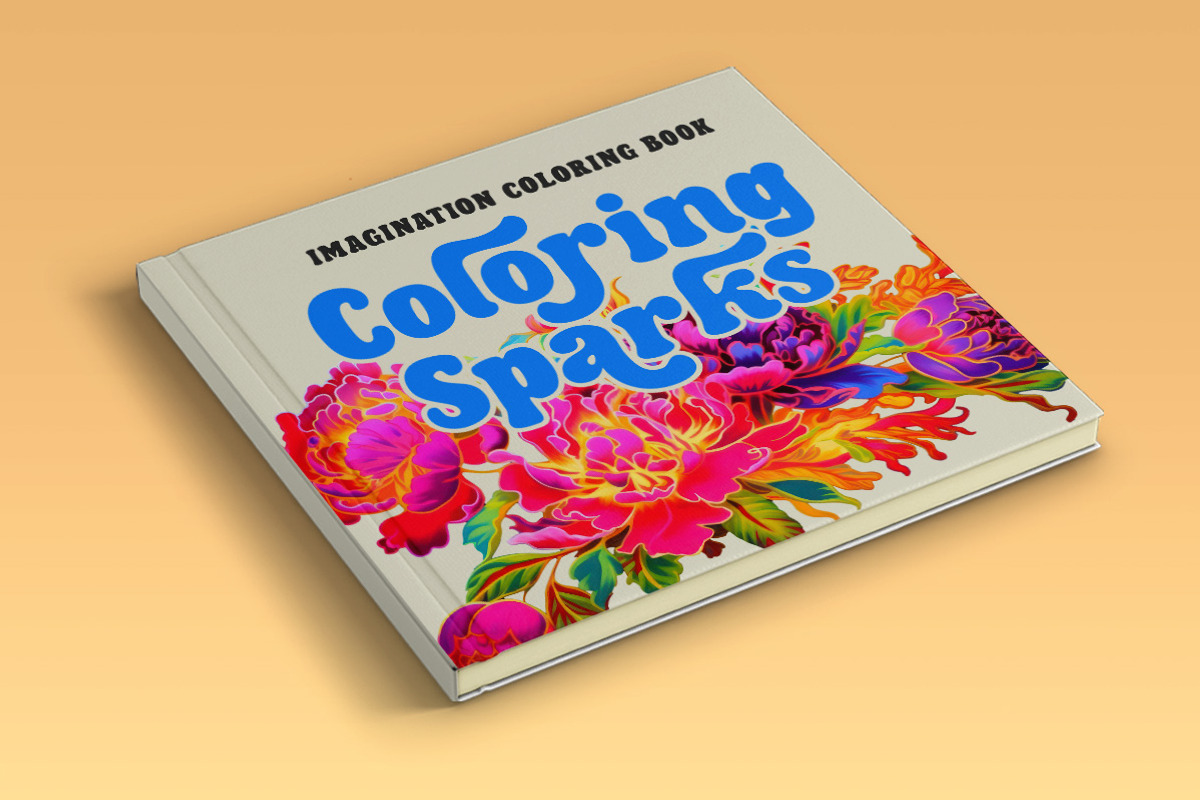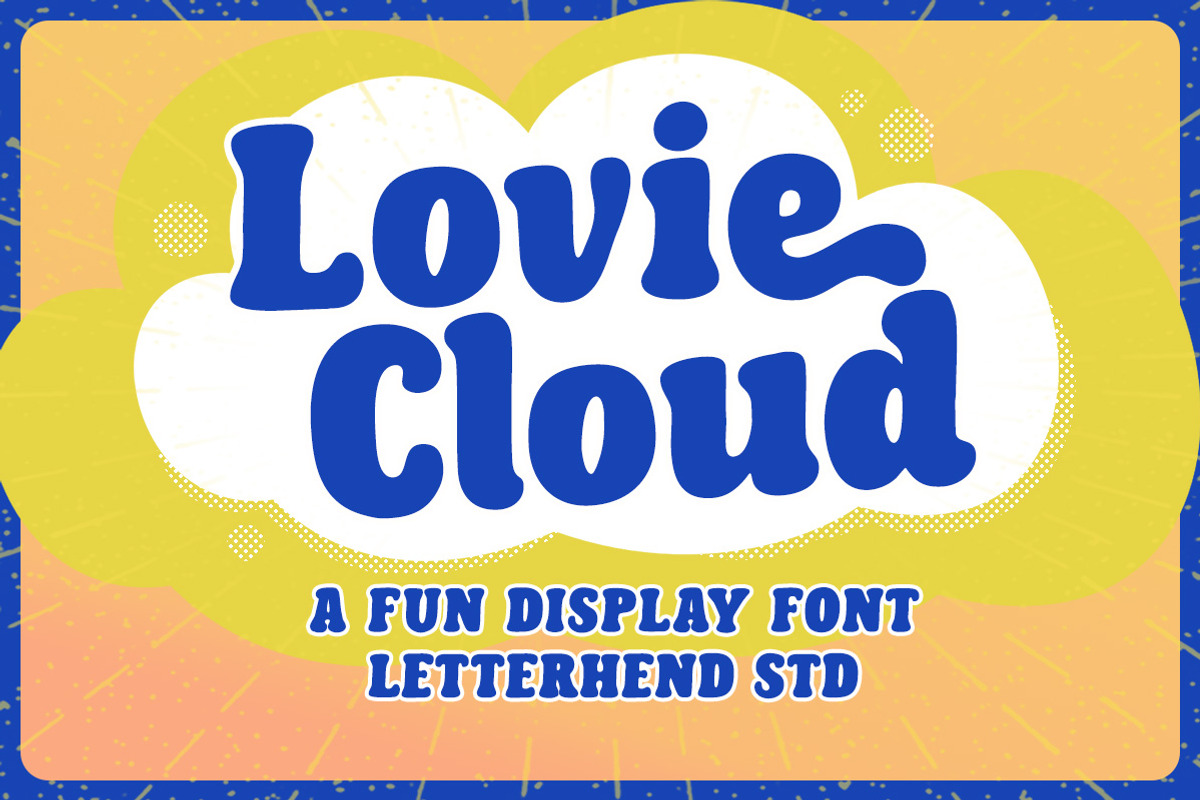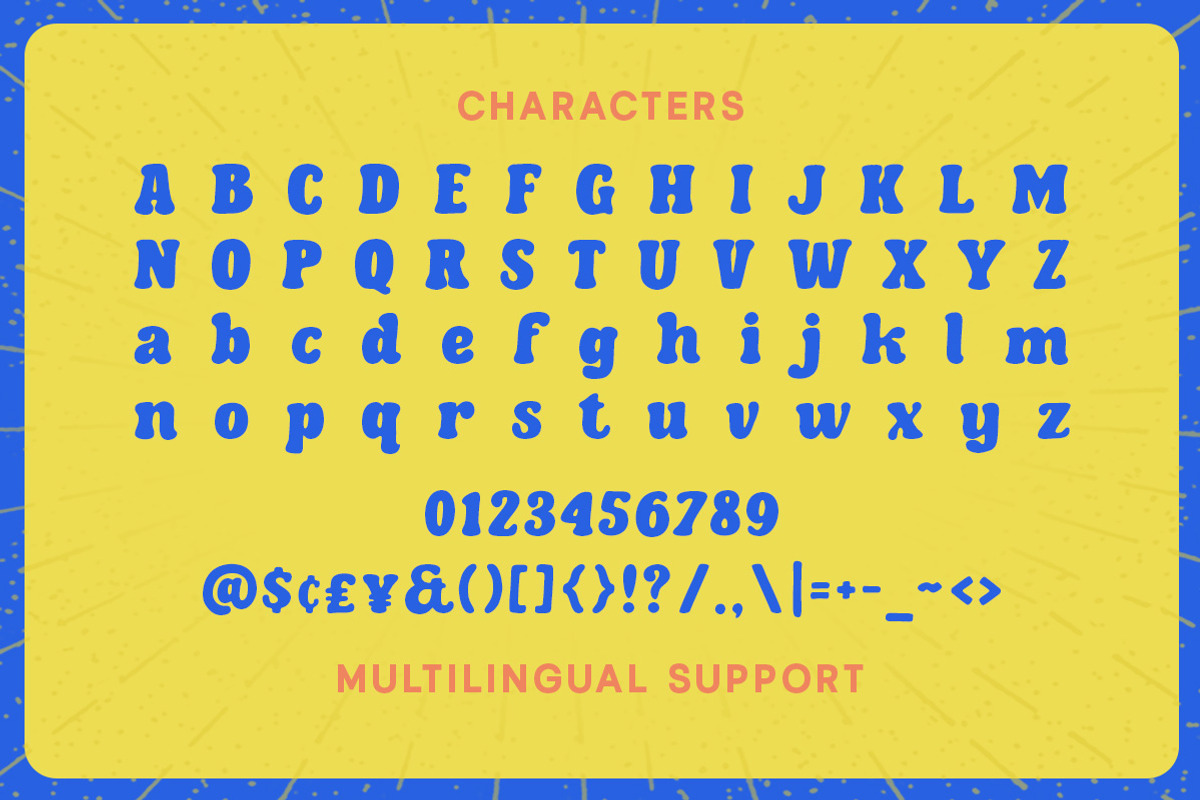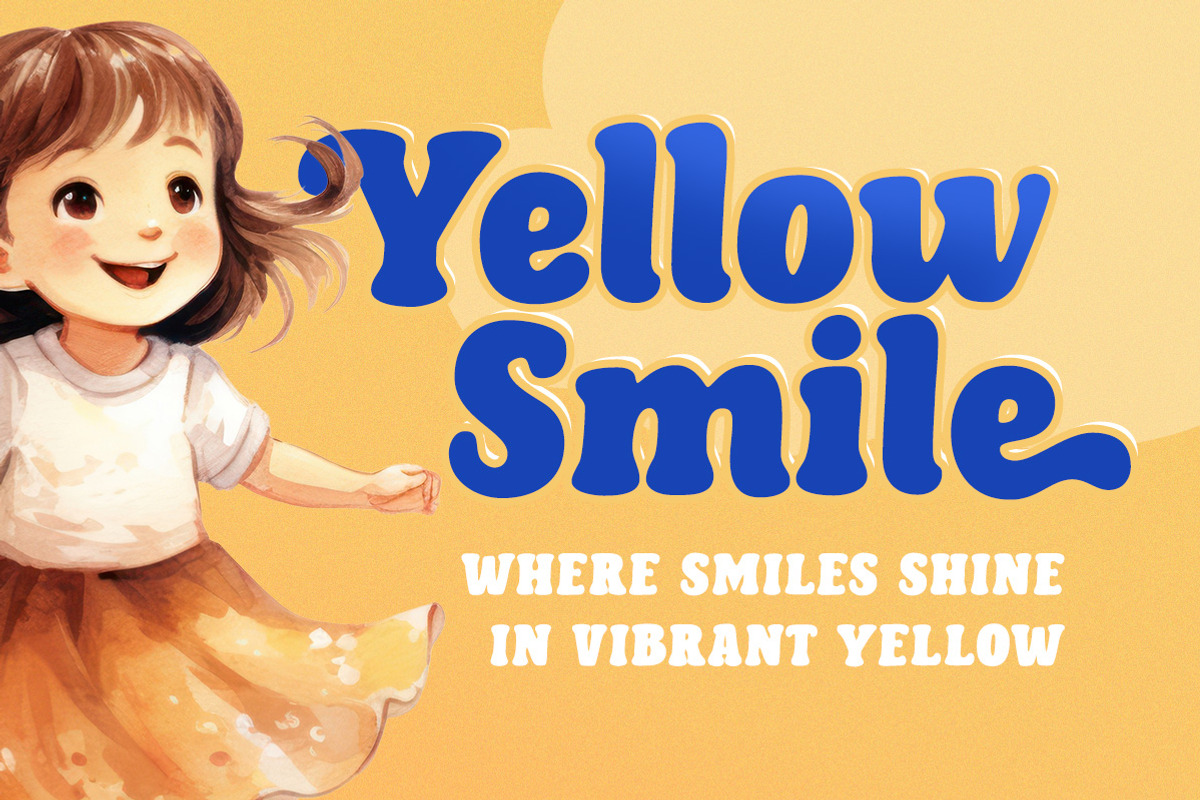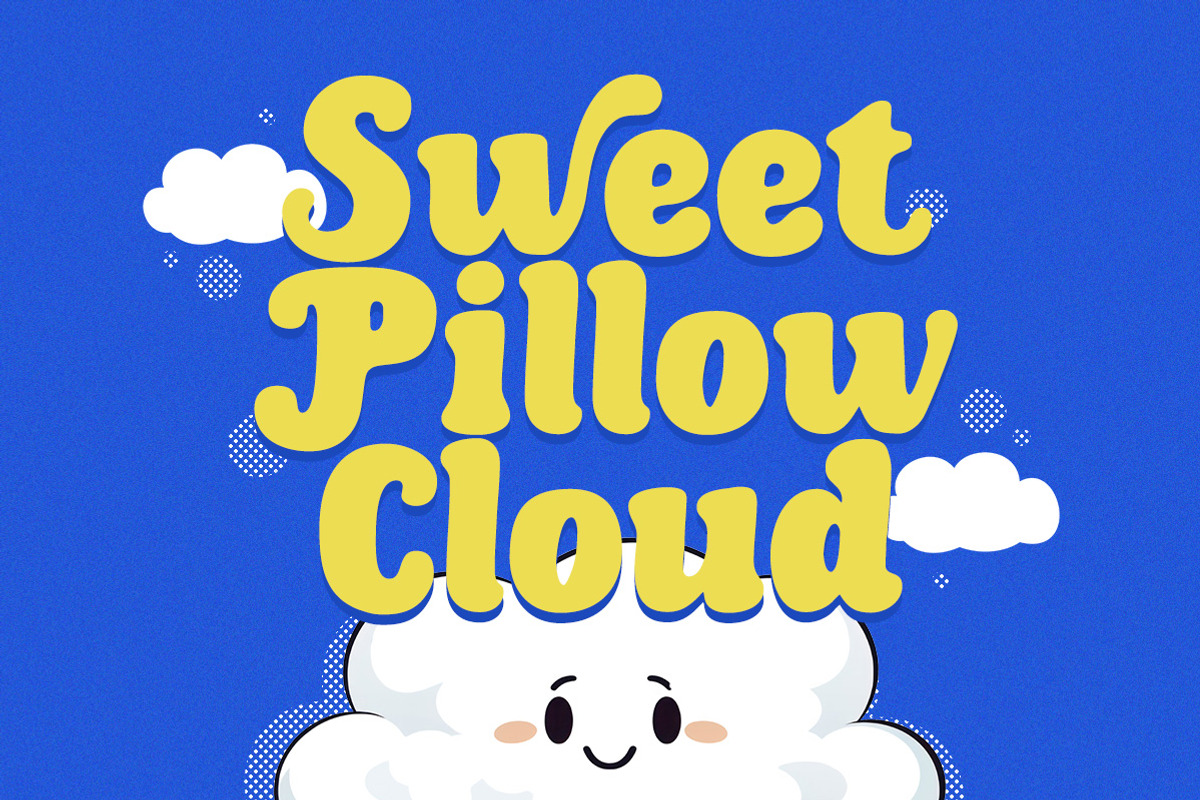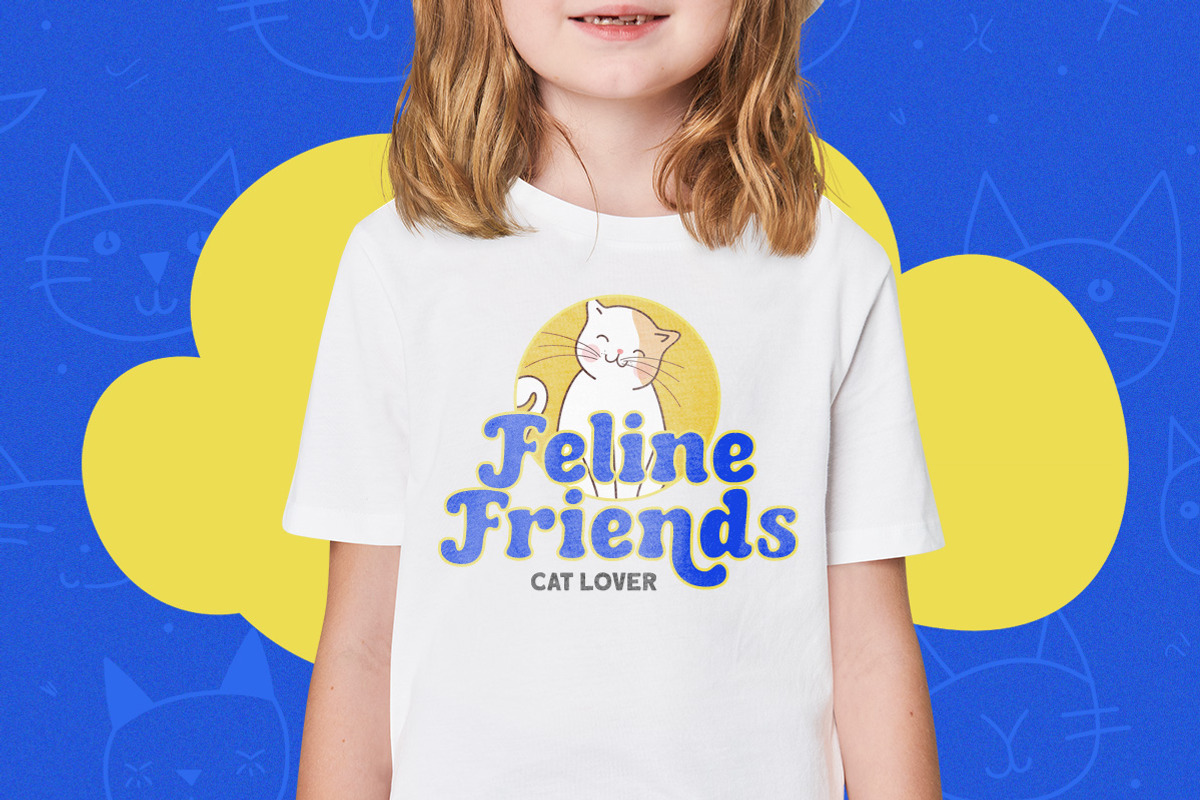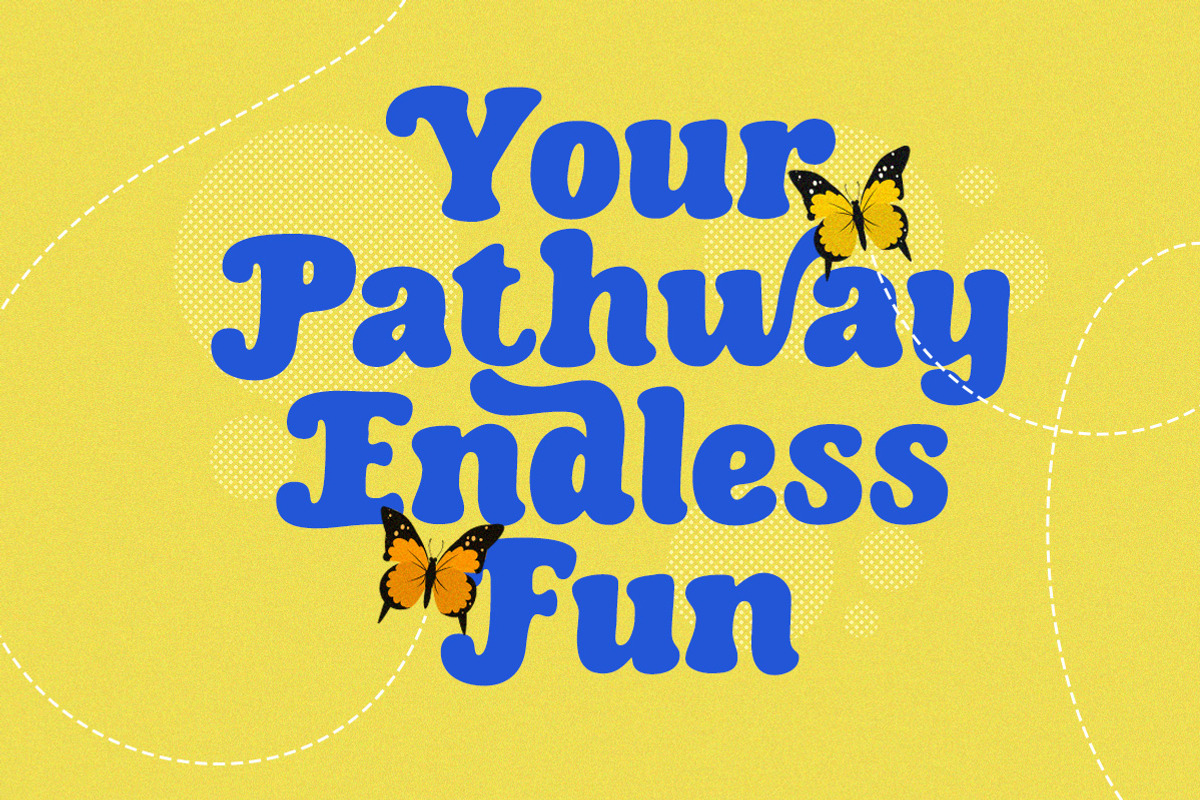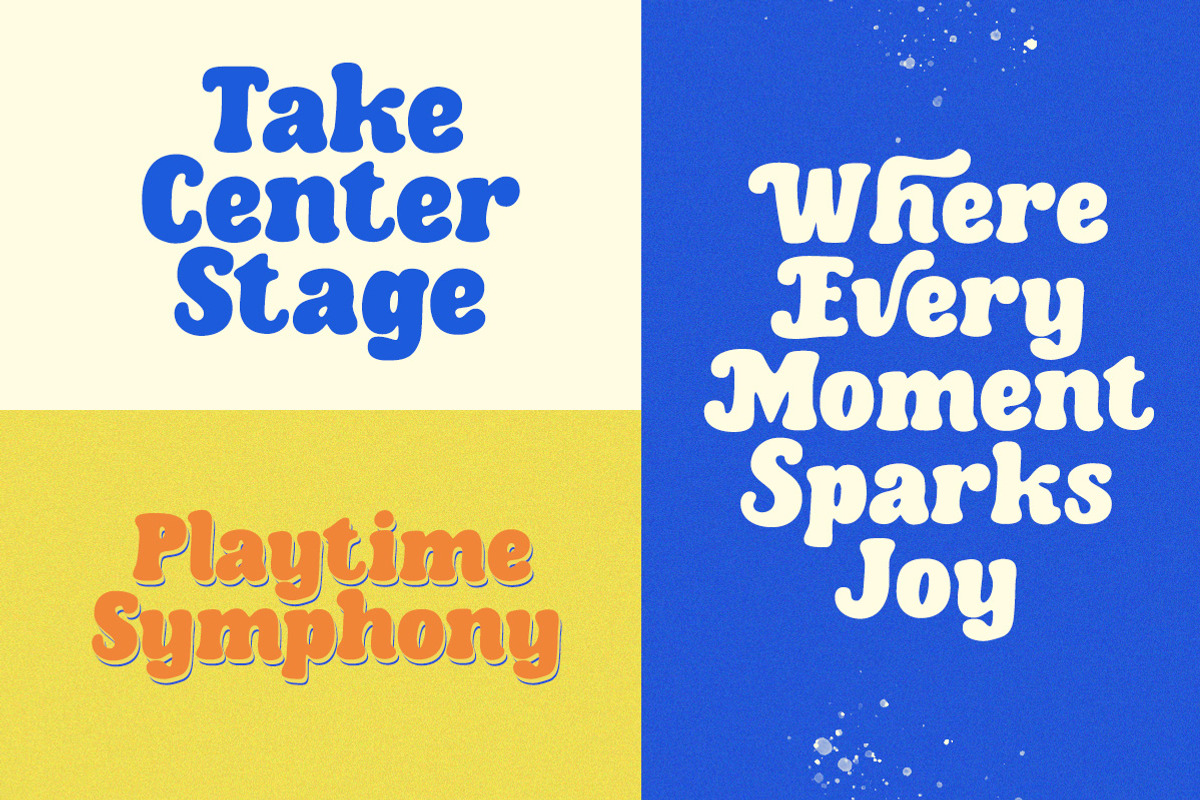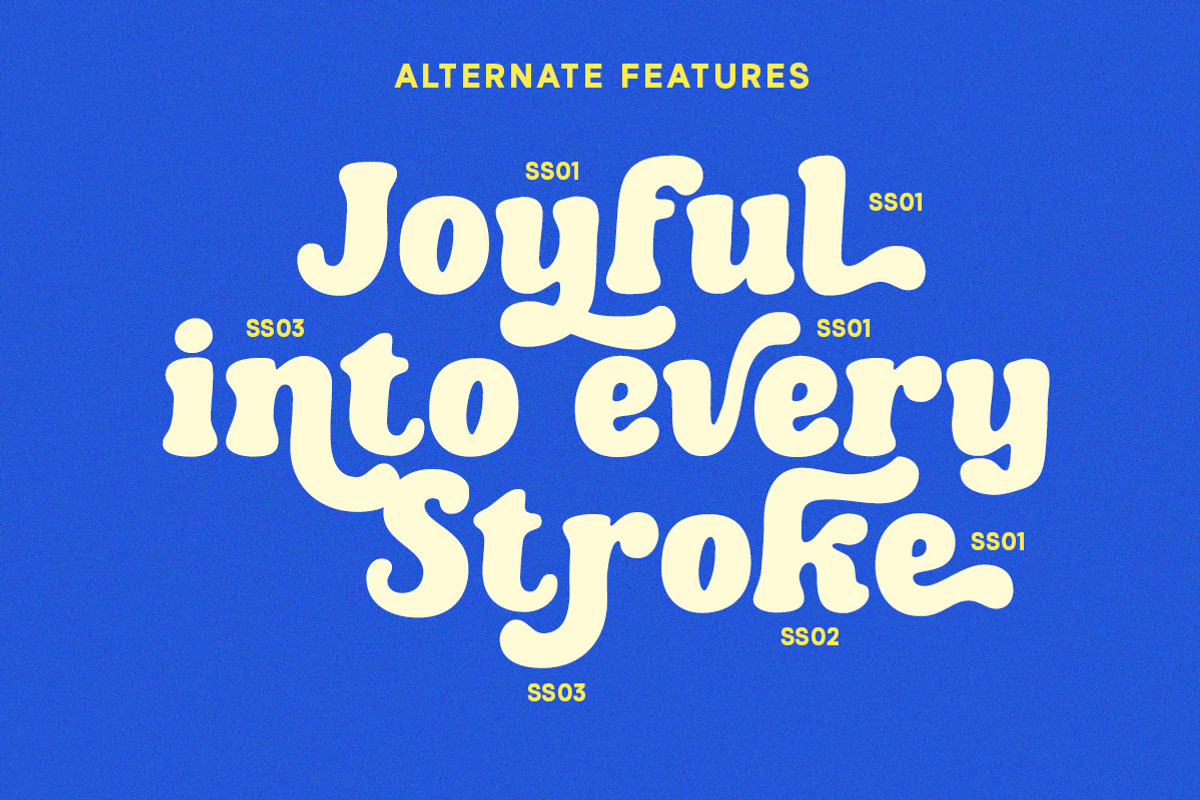
Lovie Cloud Fun Display Font
Lovie Cloud is a fun display font with bubble letterform. You can play around with alternate characters. This font perfectly made to be applied especially in logo, and the other various formal forms such as invitations, labels, logos, magazines, books, greeting / wedding cards, packaging, fashion, make up, stationery, novels, labels or any type of advertising purpose.
- Alternates/Ligatures